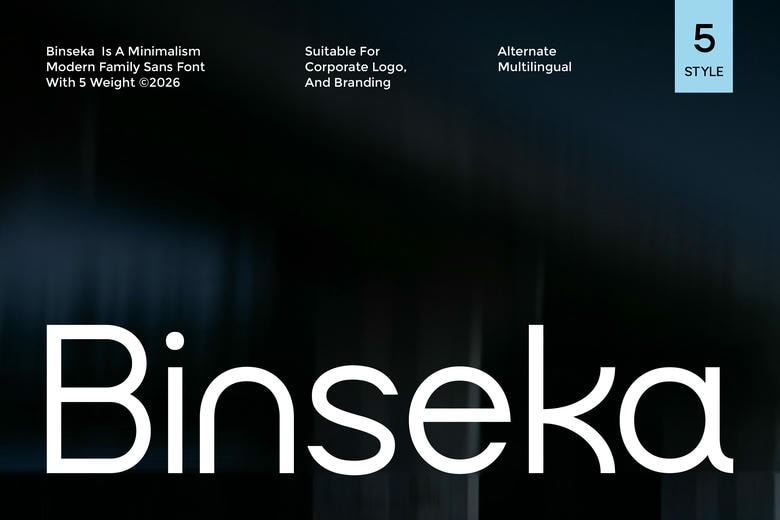
Binseka Font
Binseka is a contemporary sans serif family font, created to provide clarity, versatility and modernity in every detail. Harmonized lines, proportions, and elegant geometry make Binseka an appearance that looks professional and minimalist, and fits easily in a diverse variety of design applications. This typeface family is consistent and harmoniously visual with bold headlines and readable body text.
Binseka Sans Serif Font Family